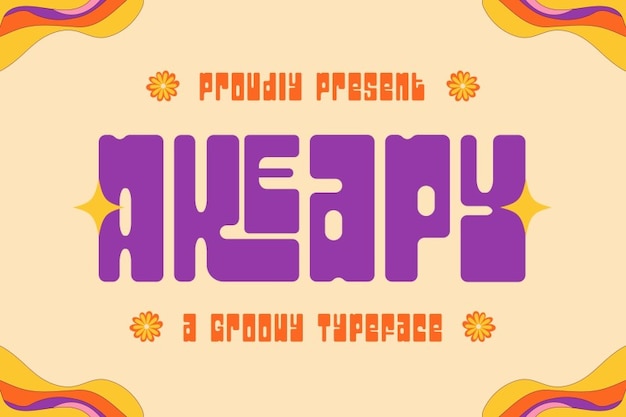
Akeapy Font
Akeapy is a bold font characterized by its tight kerning, small letter eyes, and elongated forms that give it a unique, compact look. This design creates a strong visual impact, making it ideal for striking headlines and modern branding. The close spacing and distinctive proportions bring a contemporary, edgy feel, allowing Akeapy to stand out in any layout with a clean, minimalist style.